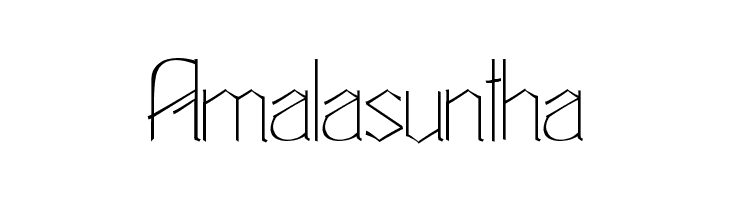
( Muhammad Ridha Agusni )
A bold, decorative font with playful serifs and a modern vintage charm.
( Pilar Celda )
A geometric and angular font with a modern, architectural style.
( Runsell Studio - creativemarket.com/RunsellStudio )
A sophisticated and flowing script font with a handwritten appearance.
( Skeddles - Sam Keddy - samkeddy.com/ )
A bold, graffiti-inspired font with sharp, angular lines and a hand-drawn look.
( Tama Putra - be.net/tmptr )
A bold, angular font with a futuristic and dynamic design.
( Vlad Viperov )
A playful, handwritten font with thin, elongated characters and a whimsical style.
( Vladimir Nikolic - www.coroflot.com/vladimirnikolic )
A decorative and intricate font with swirling, textured characters.
( Zephram )
A decorative font inspired by ancient architectural elements, featuring intricate line patterns.
A bold, architectural font with urban, building-like elements and a strong visual impact.
A bold, decorative font with a textured, distressed effect and shadowing.